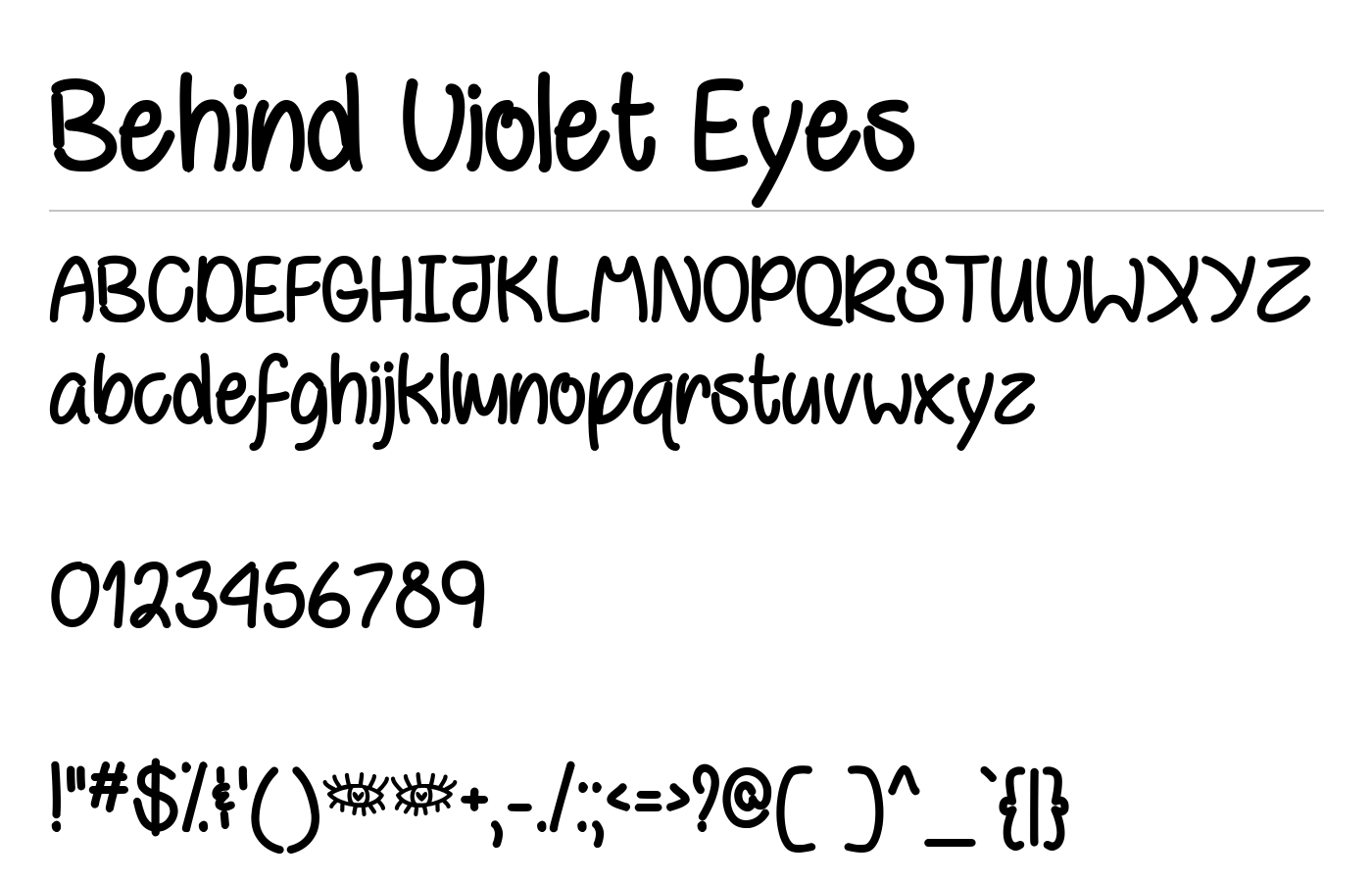
Behind Violet Eyes is a playful, casual handwritten font with a friendly and approachable feel. Its rounded, uneven strokes and lively letterforms make it well-suited for creative projects, children's materials, and informal branding where warmth and personality are key. This font works great for logos, posters, and social media where a personal, hand-crafted touch is desired.
Behind Violet Eyes Font
About Behind Violet Eyes Font